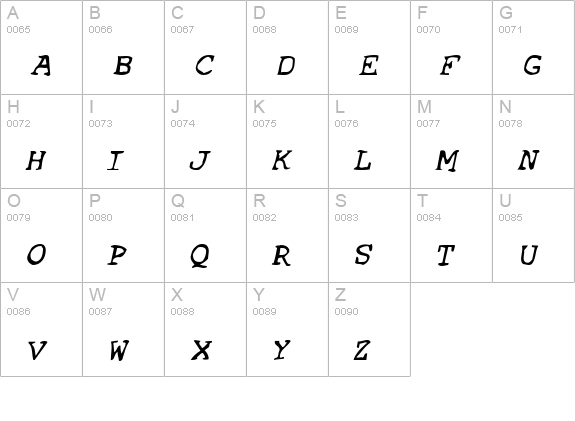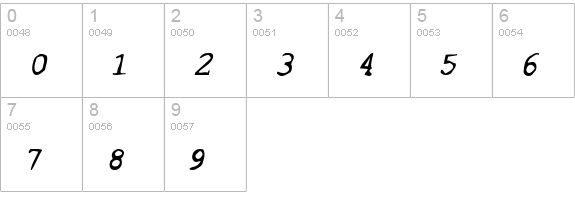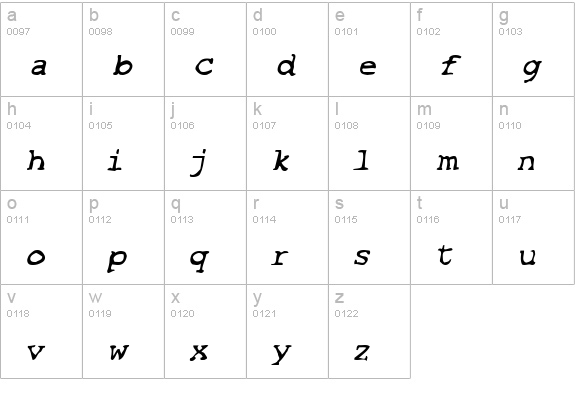
SF Espionage Medium Oblique Font Details
SF Espionage Medium Oblique is a balanced, medium-weight, italic variant in the SF typeface family \xE2\x80\x94 well suited to sub-headlines, navigation, and balanced editorial work.
SF Espionage Medium Oblique is a sleek and modern font that exudes a sense of mystery and intrigue. Its medium weight and oblique slant give it a dynamic and energetic appearance, making it perfect for projects that require a touch of excitement and adventure. This font is meticulously crafted with precision and attention to detail, resulting in clean and crisp letterforms that are easy to read yet still possess an air of sophistication. Its unique design elements and subtle curves add a touch of elegance and style, making it suitable for a wide range of applications. Whether you are designing a thrilling espionage novel cover, creating a captivating movie poster, or developing an engaging video game, SF Espionage Medium Oblique is the perfect choice to make a lasting impression. Its versatility allows it to seamlessly blend into any design, enhancing the overall aesthetic and leaving a lasting impact on the viewer. One of the best features of SF Espionage Medium Oblique is that it is freely available to download at FontsMarket.com. This means that you can easily access this font and incorporate it into your creative projects without any financial constraints. With its high-quality design and affordable price tag (which is free!), SF Espionage Medium Oblique is a font that delivers exceptional value without compromising on style or functionality. So, why wait? Download SF Espionage Medium Oblique today from FontsMarket.com and unleash your creativity with this captivating and versatile font. Whether you are a professional designer or a hobbyist, this font will elevate your work to new heights and leave a lasting impression on your audience.